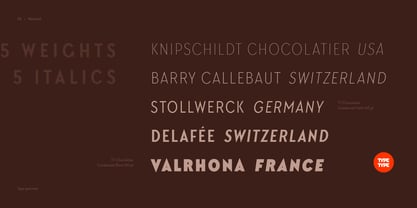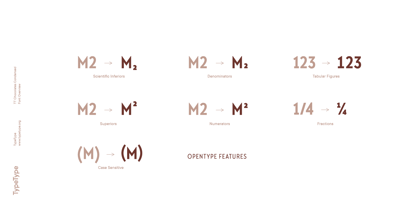
TT Chocolates Condensed
by TypeType
About TT Chocolates Condensed Font Family
Check out entirely redesigned and expanded TT Chocolates. TT Chocolates Condensed update 1.1 What’s new: Case Sensitive Forms, Tabular Figures, Fractions, Numerators, Denominators, Superiors, Scientific Inferiors Have you heard the expression, ‘you can never have too much chocolate’? We completely agree with this point of view and are gladly presenting you the TT Chocolates Condensed font family, the narrow version of your favorite TT Chocolates. Keeping its sisters' best features, TT Chocolates Condensed has significantly broadened its opportunities scope and application areas. It can do any work: be the essential branding element, appear in large heading and display text arrays, or simply and elegantly find its palace on confectioneries packaging. TT Chocolates Condensed is an elegant geometric sans-serif which can be used as the main ingredient of your design, or you can add it as a tasty accent. We offer you the formula that has become TypeType’s classic, a set consisting of 10 typefaces (Thin, Light, Regular, Bold, Black & Italics), and perfect optimization of the font family. TT Chocolates Condensed can be freely used for web-sites, mobile applications, and any printed materials.
Designers: Ivan Gladkikh, TypeType Team
Publisher: TypeType
Foundry: TypeType
Design Owner: TypeType